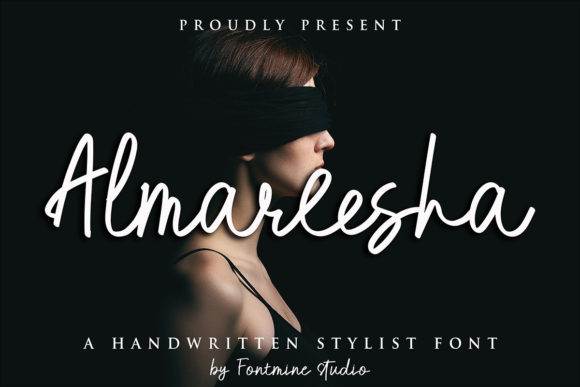
The Almareesha Font: A Designer’s New Best Friend
I’ll never forget the time I was working on a photography project, trying to find the perfect font to use as a watermark. I had a vision of something elegant, yet casual – a font that would add a touch of sophistication without looking too formal. After hours of scrolling through font websites, I stumbled upon Almareesha, a beautiful casual script font that instantly caught my eye. In this article, I’ll share my experience with Almareesha, its features, and how to make the most of it in your designs.
First Impressions: A Love Affair with Almareesha
Almareesha is a stunning casual script font that exudes both sophistication and class. Its elegant strokes and flowing curves make it perfect for a wide range of design projects, including photography, watermarks, social media posts, advertising, logos, branding, invitations, product designs, and more.
What I Love About Almareesha ✨
- 💫 Elegant and sophisticated, yet casual and approachable
- ✅ Perfect for adding a touch of luxury to designs
- 🌈 Highly versatile and adaptable to various design projects
- 👍 Easy to read and understand, even at smaller font sizes
A Few Quirks to Keep in Mind 🤔
- ⚠️ May not be suitable for very formal or traditional designs
- ⚠️ Some characters may not work well in all contexts (e.g., @ symbol)
The Story Behind Almareesha
Almareesha was designed with the intention of creating a font that would be both elegant and approachable. The designer aimed to craft a font that would be perfect for designs that require a touch of sophistication, yet still feel casual and friendly.
| What is Almareesha best used for? | Almareesha is perfect for designs that require a touch of elegance and sophistication, such as photography watermarks, social media posts, advertising, logos, and branding. |
| Is Almareesha suitable for body text? | While Almareesha is easy to read, it’s best suited for headings and titles. For body text, a clearer font may be more suitable. |
| Does Almareesha support OpenType features? | Yes, Almareesha supports OpenType features, including ligatures and stylistic alternates. |